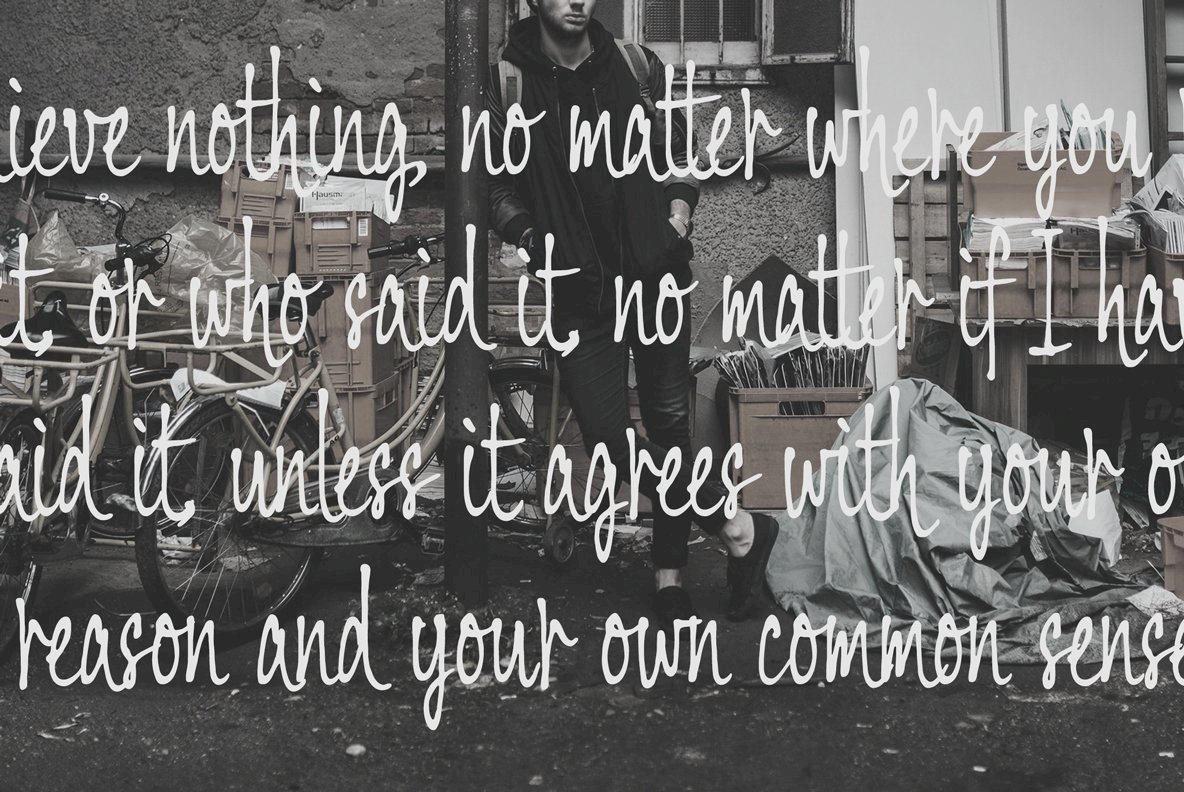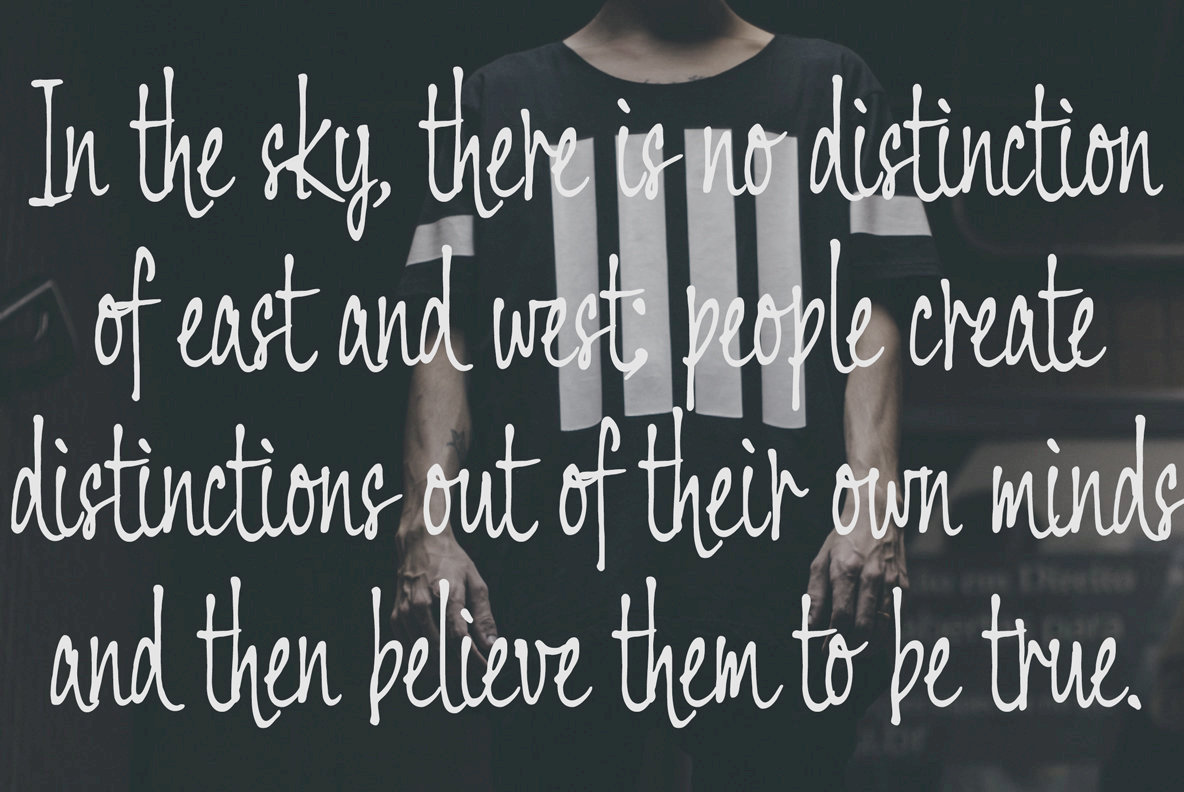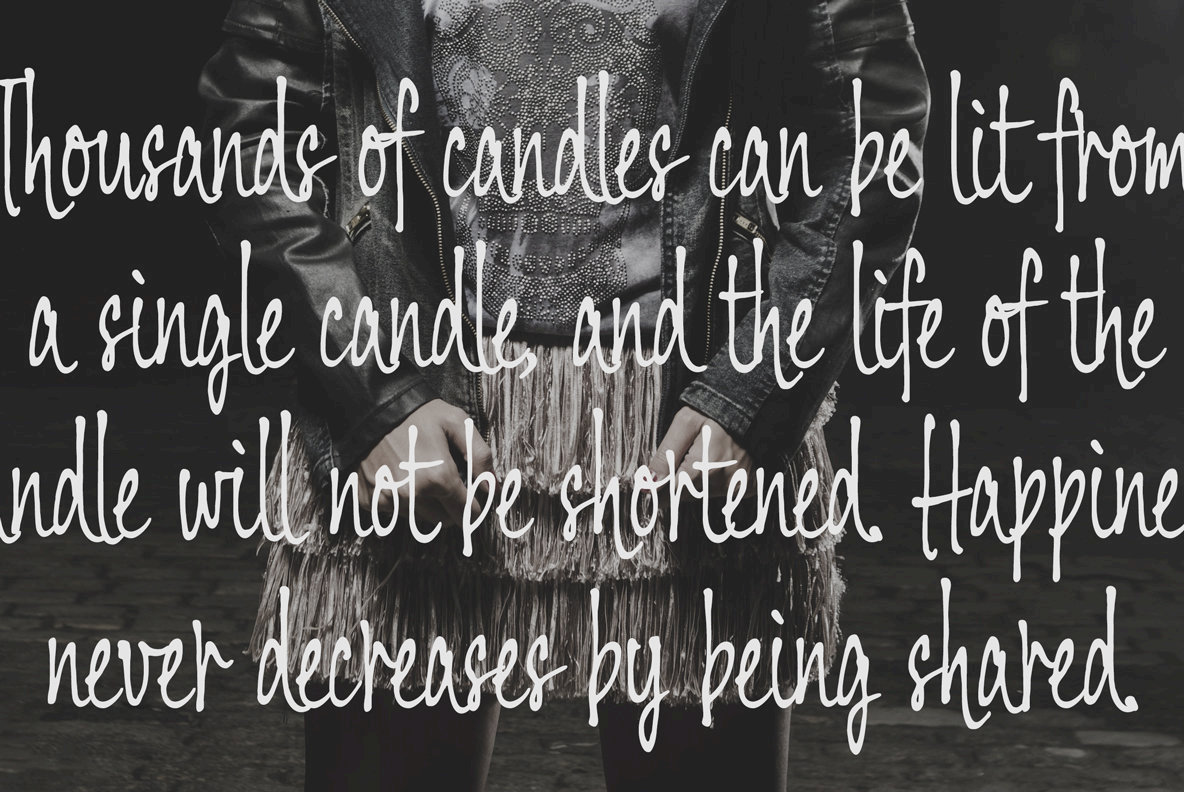
Balaghat 1
Rapid handwriting script for posters, advertising and visual part of work.
Very impressive and strong letterform stands out.
In the early 2000's, Ryoichi Tsunekawa was fascinated by the relations between modernist design and Bauhaus style while studying architecture at Nagoya University. He eventually changed his focus to type-design, establishing an extensive font collection that is now available on YouWorkForThem.The desig...